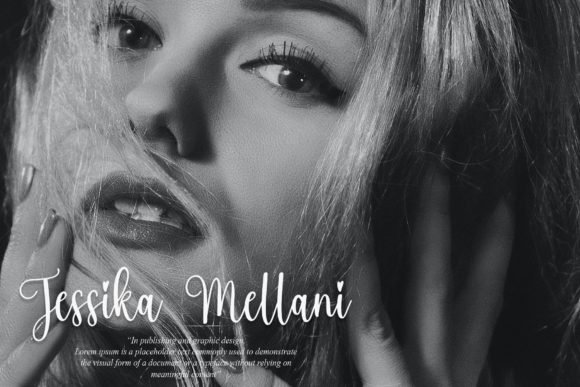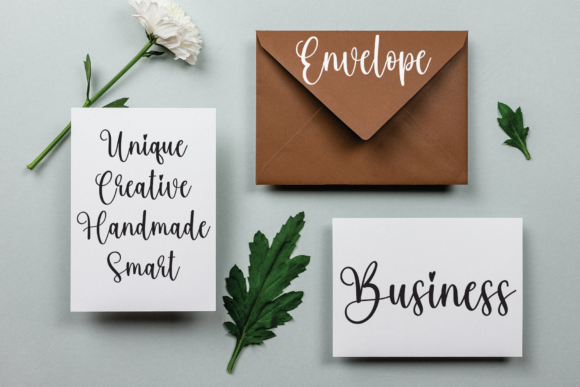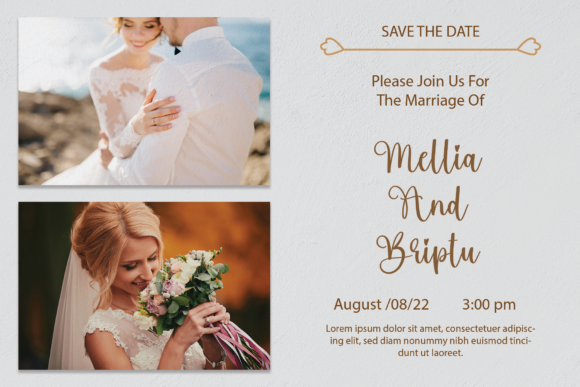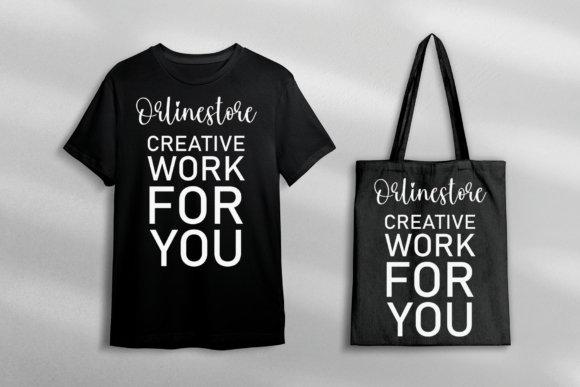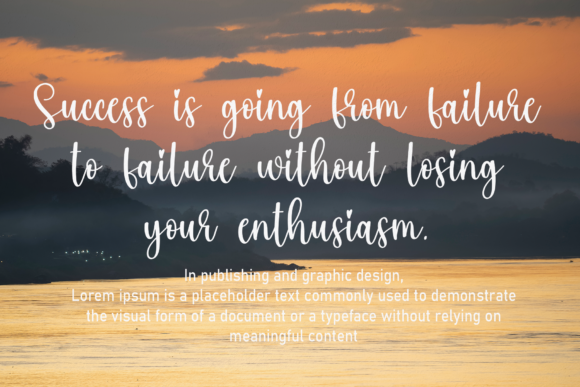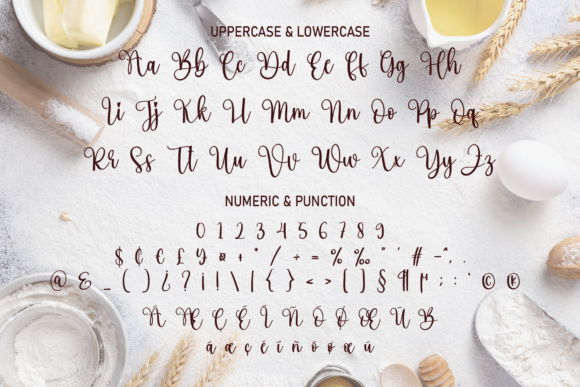
Bakery Font: Elevate Your Designs with Elegance and Flair
Are you a designer or crafter looking for a font that can add a touch of sophistication and whimsy to your creative projects? Look no further than the Bakery font, a delicate, elegant, and flowing handwritten font that is sure to make your designs come alive.
The Characteristics of Bakery Font
Bakery font is a beautifully crafted handwritten font that boasts well-balanced characters and a flowing script style. Its elegant and refined appearance makes it perfect for a wide range of design applications, from wedding invitations and branding materials to packaging and digital media.
One of the standout features of Bakery font is its versatility. Its classic and timeless design ensures that it can be paired with a variety of design styles, from modern and minimalist to vintage and ornate. Whether you’re creating a logo, brochure, or social media graphic, Bakery font is sure to add a touch of sophistication and elegance.
Why Choose Bakery Font?
So, why should you choose Bakery font for your next design project? Here are just a few reasons:
- Elegance and sophistication: Bakery font exudes elegance and sophistication, making it perfect for high-end branding and design applications.
- Versatility: Its classic design ensures that it can be paired with a wide range of design styles and themes.
- Easy to read: Despite its elegant and flowing script style, Bakery font is easy to read and understand, making it perfect for body text and captions.
- Unique and creative: Bakery font has a unique and creative flair that will set your designs apart from the crowd.
How to Use Bakery Font in Your Designs
Using Bakery font in your designs is easy. Here are a few tips to get you started:
- Pair it with bold fonts: Pair Bakery font with bold and modern fonts to create a striking contrast and add visual interest to your designs.
- Use it for headings and titles: Bakery font is perfect for headings and titles, where its elegant and flowing script style can really shine.
- Add it to your branding materials: Use Bakery font in your branding materials, such as logos, business cards, and letterheads, to add a touch of sophistication and elegance.
- Experiment with colors and textures: Don’t be afraid to experiment with different colors and textures to add depth and visual interest to your designs.
Bakery Font in the World of Crafting
Bakery font is not just limited to digital design. It’s also perfect for crafters who love to create handmade cards, scrapbook pages, and other paper crafts.
Imagine adding a touch of elegance and sophistication to your handmade cards and gifts with Bakery font. You can use it to create beautiful journaling and lettering, or add it to your scrapbook pages for a touch of whimsy and flair.
In conclusion, Bakery font is a beautiful and elegant handwritten font that is perfect for designers and crafters who want to add a touch of sophistication and whimsy to their creative projects. Its versatility, elegance, and ease of use make it a great choice for a wide range of design applications, from branding and packaging to paper crafts and digital media.
So why not give Bakery font a try? Add it to your most creative ideas and watch as it brings them to life in a way you never thought possible.